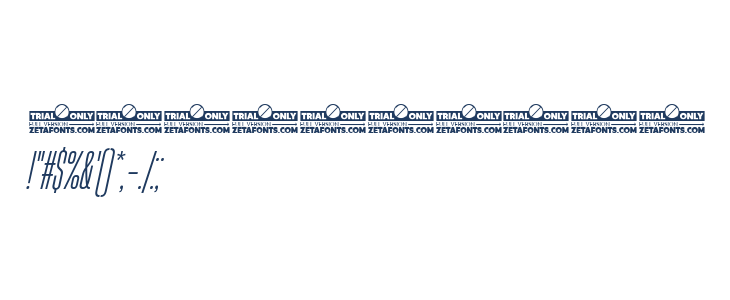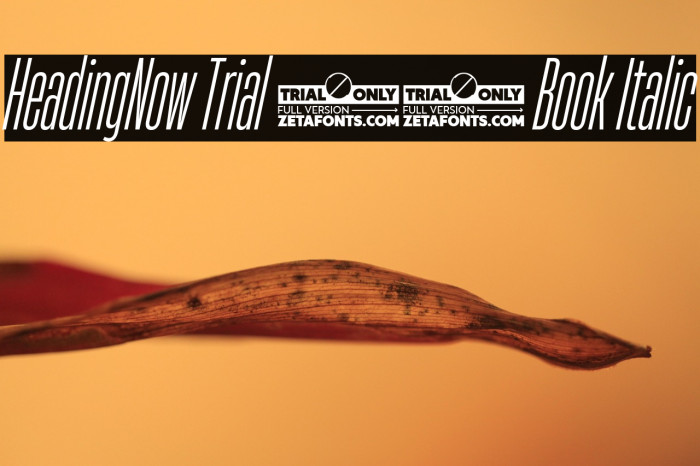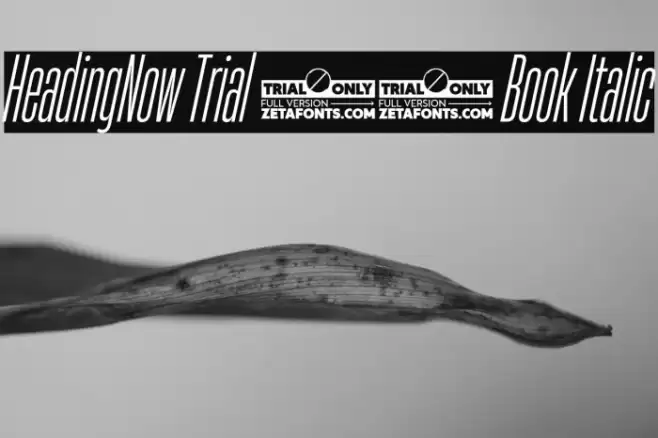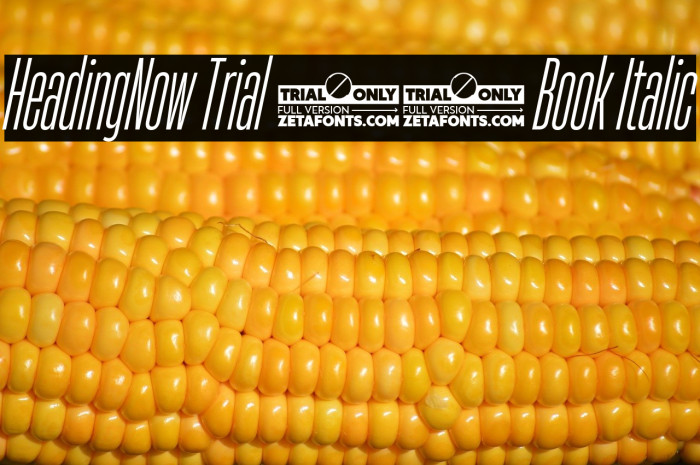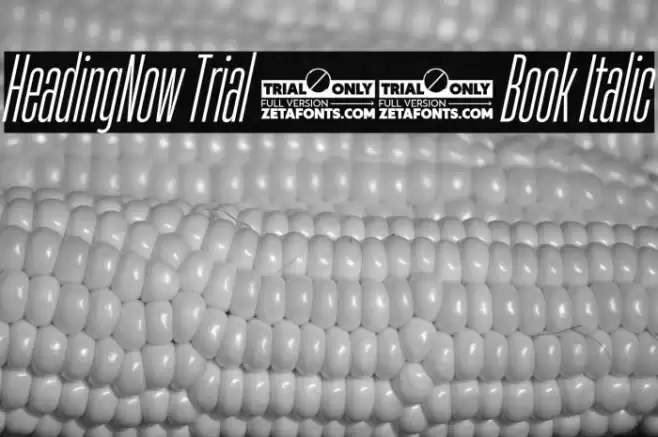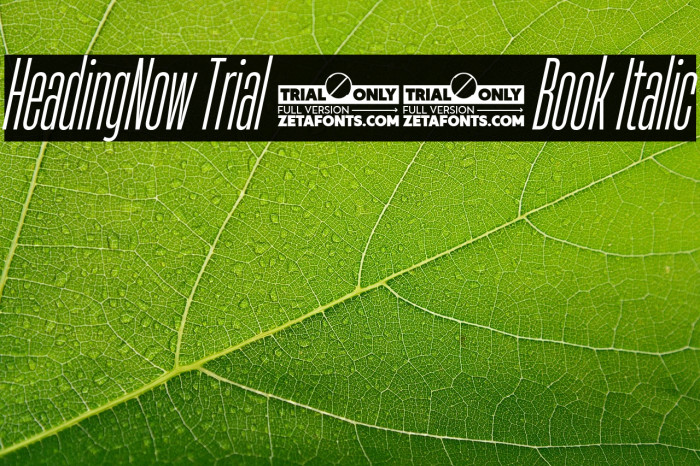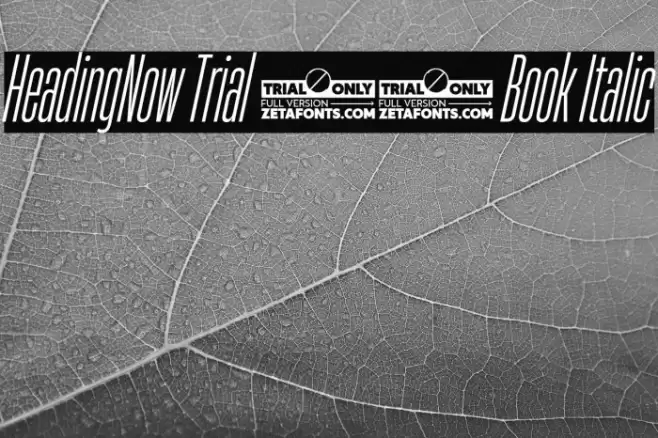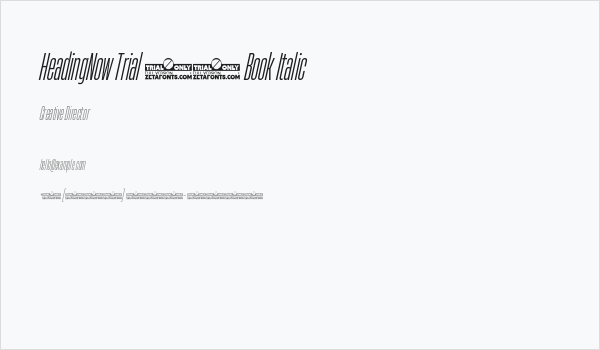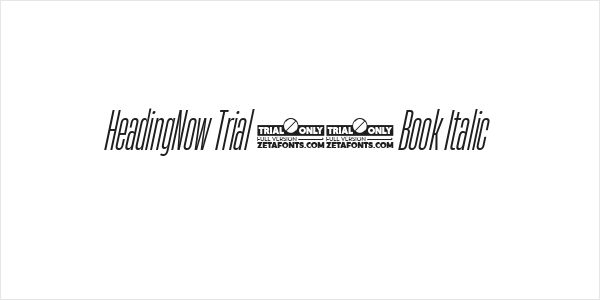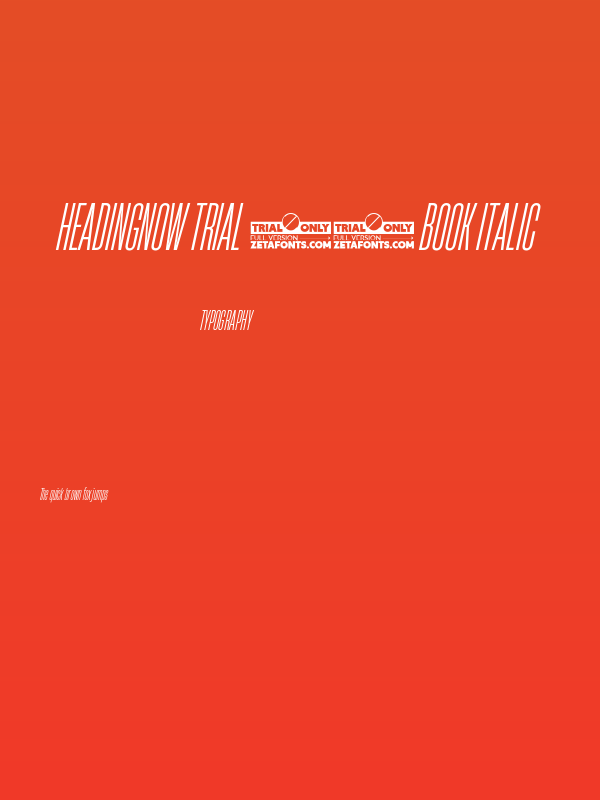
HeadingNow Trial 13 Book Italic Font
HeadingNow Trial 13 Book Italic Description
This font features a sleek and modern design with a distinctly italicized style. The characters are elongated and slightly condensed, giving a sense of movement and elegance. The strokes are consistent in thickness, providing a medium contrast that enhances readability while maintaining a stylish appearance. The uppercase and lowercase letters are well-proportioned, and the numerals align seamlessly with the overall aesthetic. Special characters are included, adding versatility for various design needs. This font is ideal for projects that require a contemporary and sophisticated touch.